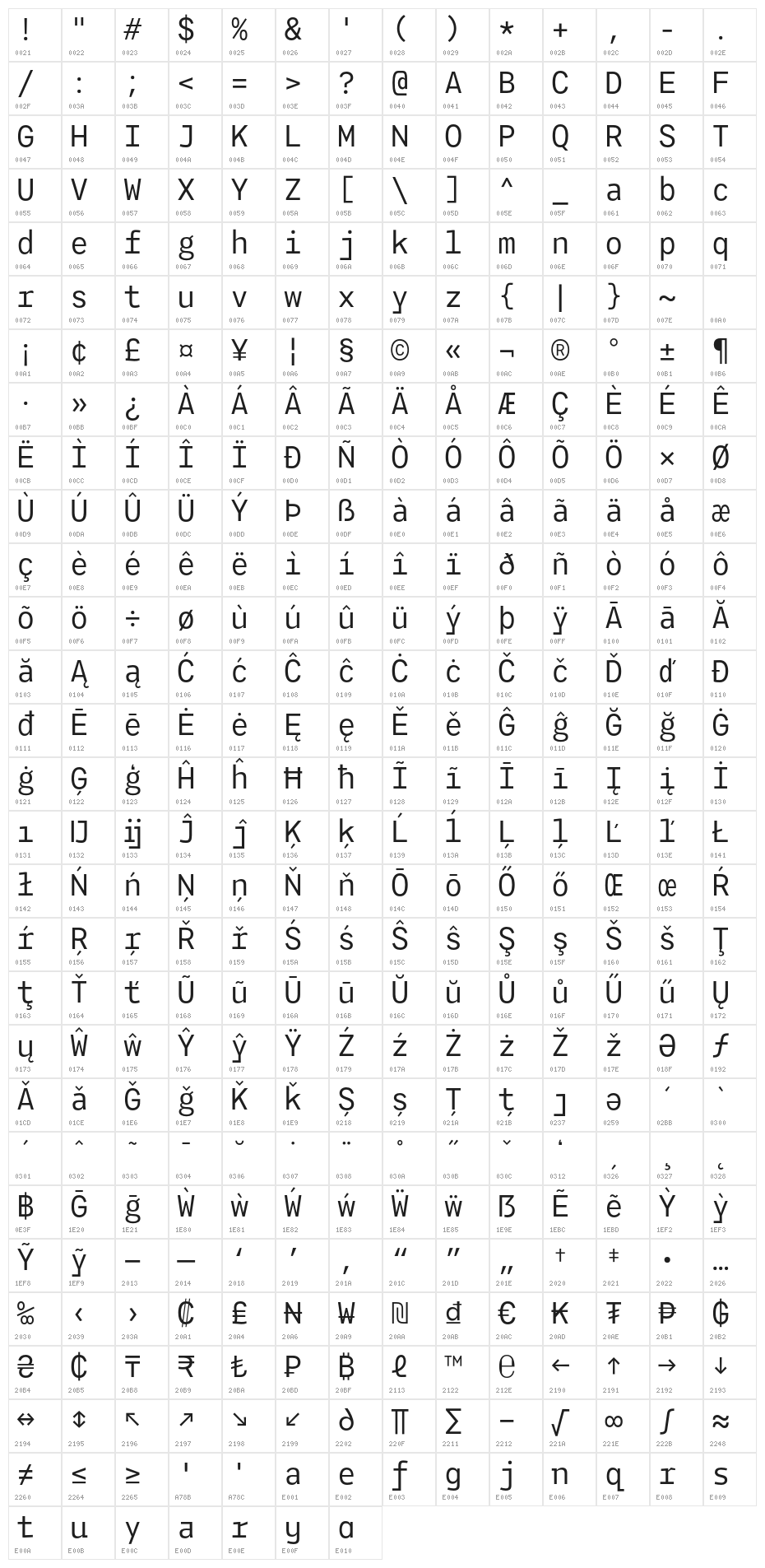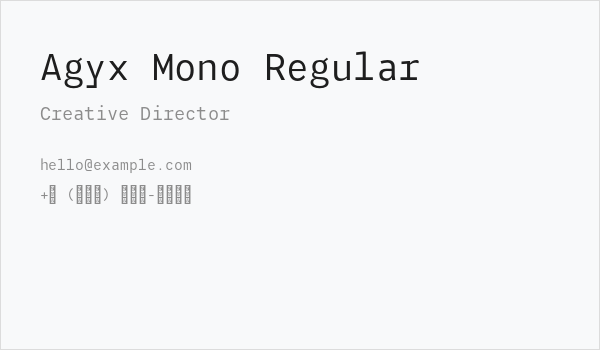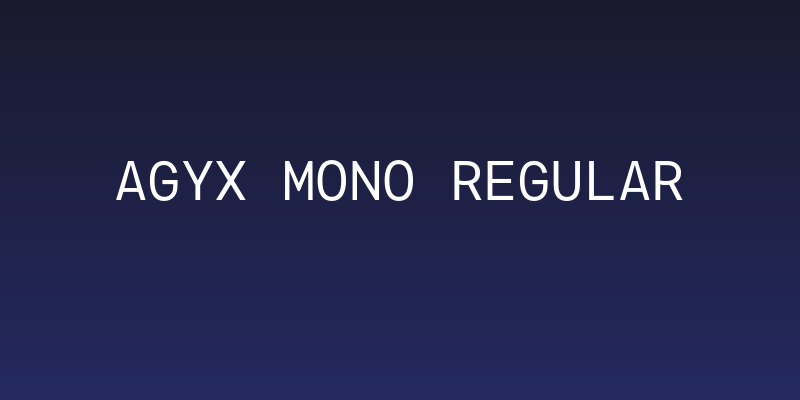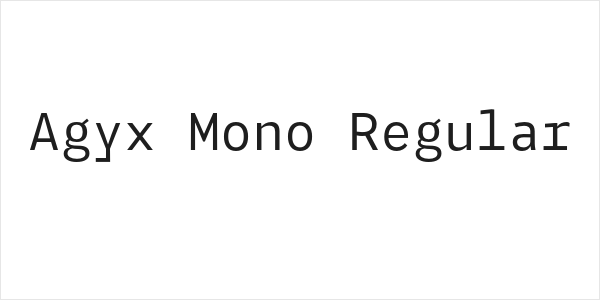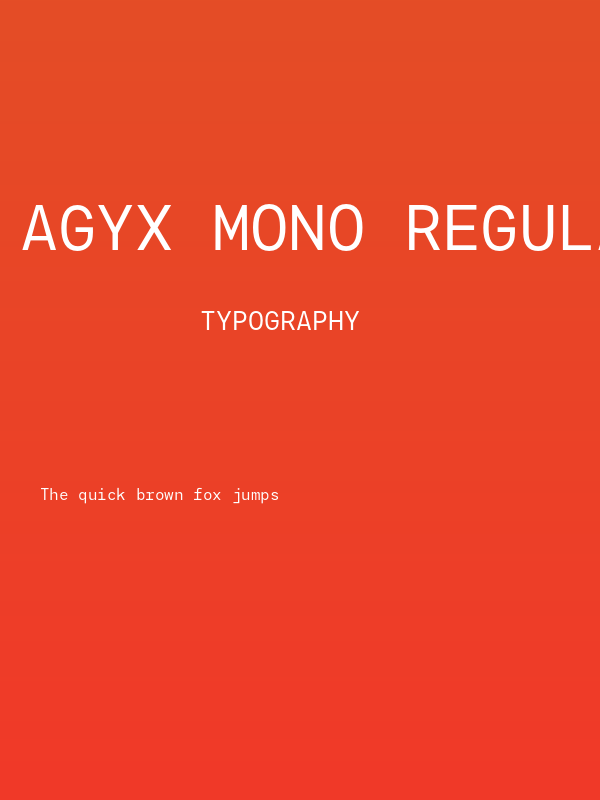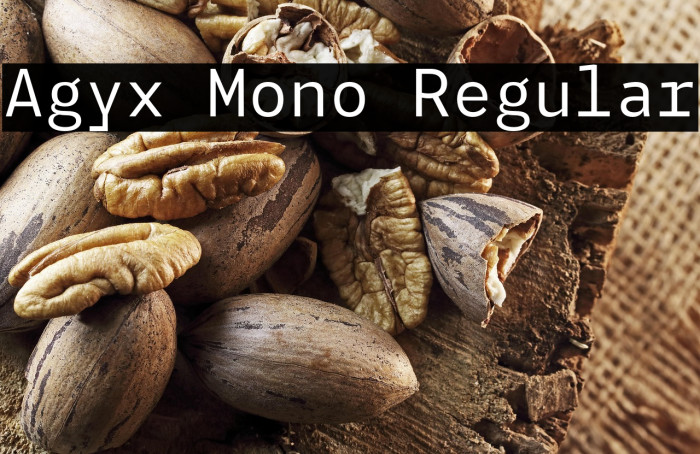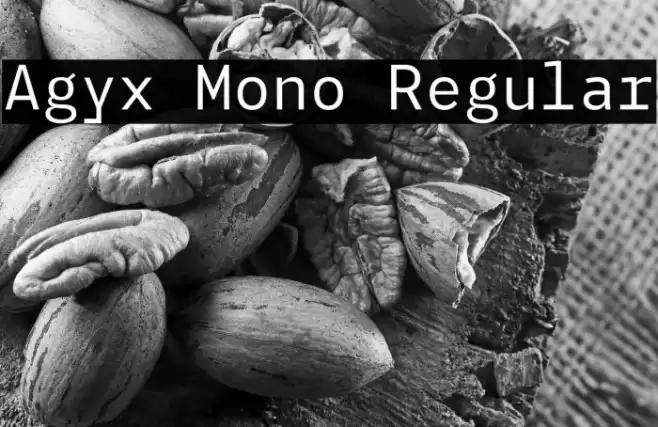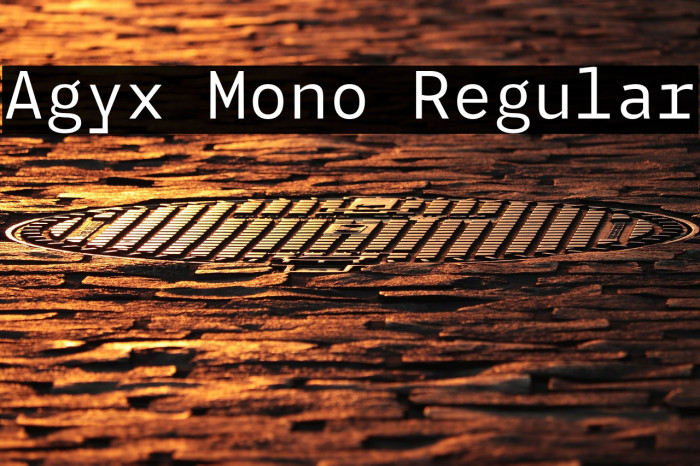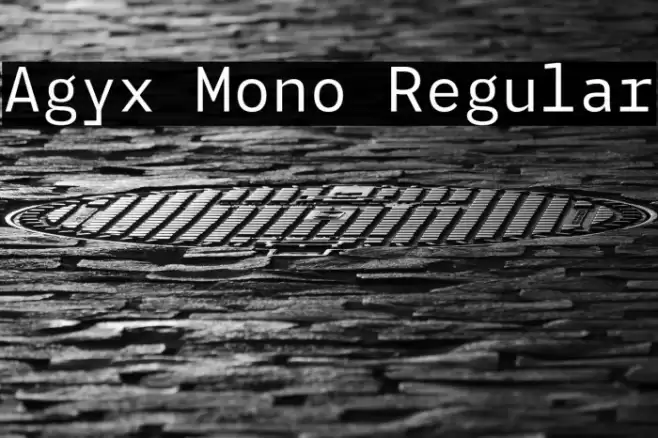
Agyx Mono Regular Font
Agyx Mono Regular Description
This font features a clean and modern monospaced design, characterized by uniform character width and a straightforward, geometric structure. The uppercase and lowercase letters maintain a consistent height, contributing to a balanced and orderly appearance. The font's simplicity and clarity make it highly legible, suitable for coding and technical documentation. The absence of decorative elements ensures focus on functionality and readability. The characters are evenly spaced, enhancing the overall neatness and precision of the text.
| Use Case | Coding, Technical documentation |
| Proposed Projects | Ideal for coding, technical documentation, and any project requiring precise alignment and readability. |